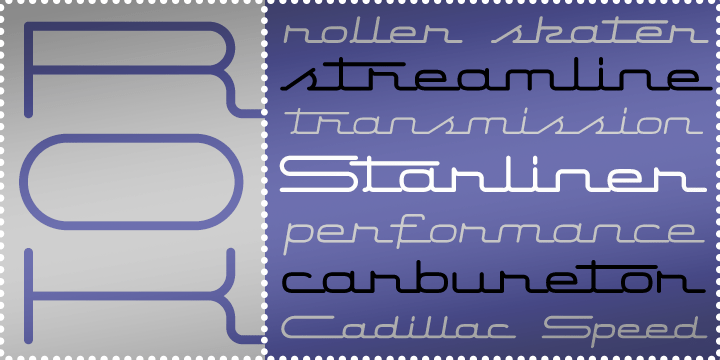
Starliner BTN
Starliner BTN is a clean monoline script family inspired by the streamlined lettering found on 1950s automobile emblems and vintage brightwork. Its smooth connected forms and polished retro attitude give it a sleek, mid-century character that works especially well for signage, branding, packaging, posters, automotive-themed graphics, and nostalgic headline design. With Regular, Bold, Oblique, and Bold Oblique styles, Starliner BTN offers flexible ways to create typography that feels stylish, smooth, and unmistakably vintage.